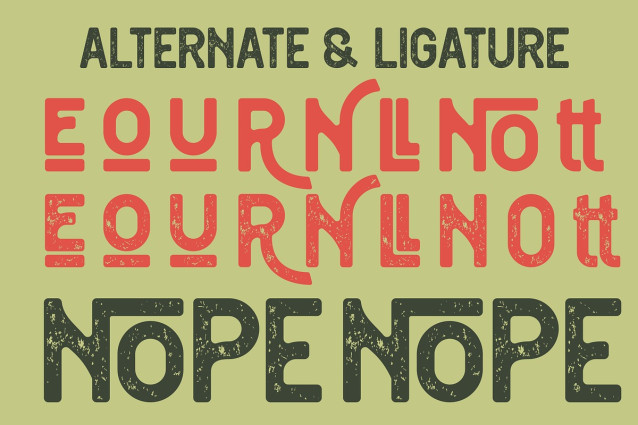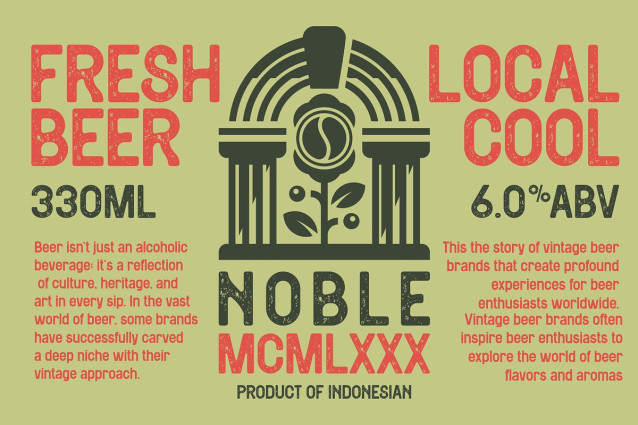
Sendako Font
Sendako Font – Modern Font is a bold and authentic display font. The font is suitable for any branding project like logo, Template Design, Product and many more. outstanding in a wide range of contexts.